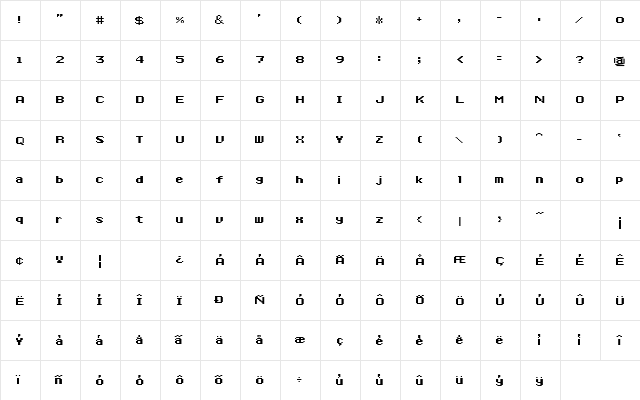
32bit Regular
Design Context for 32bit Typeface
32bit takes a measured approach to typography — its balanced proportions and neutral character make it a reliable workhorse for both digital and print work.